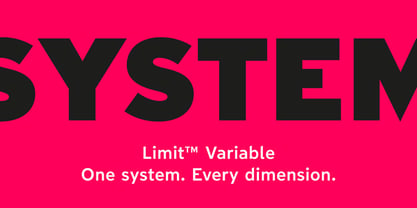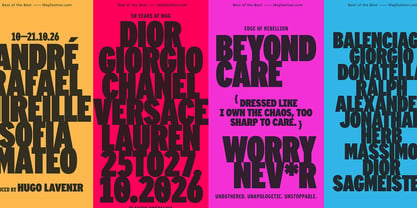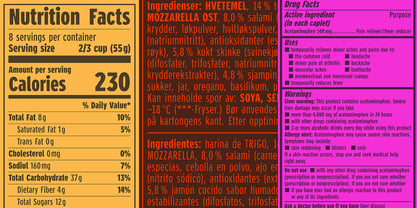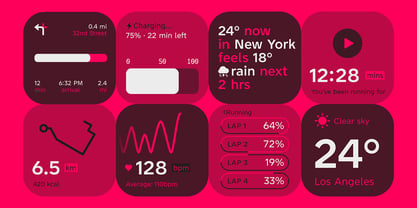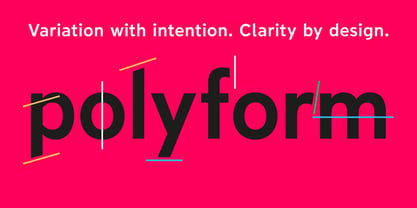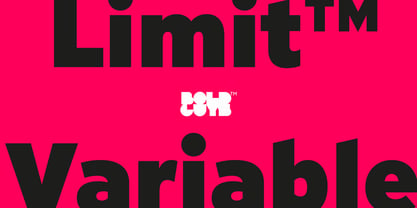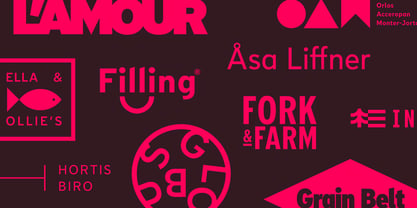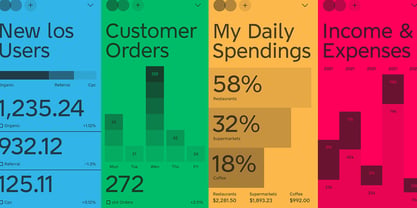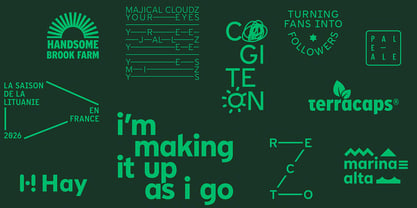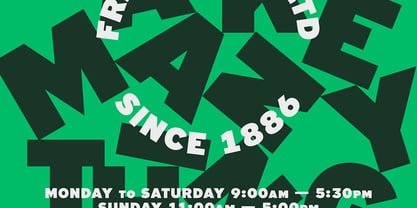
Limit Variable Concept Full
by Bold Guys™
The Limit Variable Concept Full Font Family was designed by Jörg Hemker and published by Bold Guys™. Limit Variable Concept Full contains 2 styles and family package options.
Limit™ Variable is the complete typographic system — unified, scalable, uncompromising. Across a continuous optical axis, Micro, Text, and Display converge into one fluid framework, adapting seamlessly from the smallest interfaces to the largest environments. Fine details remain sharp at minimal sizes, reading stays balanced and controlled, and large-scale typography gains confident, striking presence. Instead of separate families, Limit™ Variable delivers one cohesive voice — precise in detail, powerful in impact, and unmistakably modern.